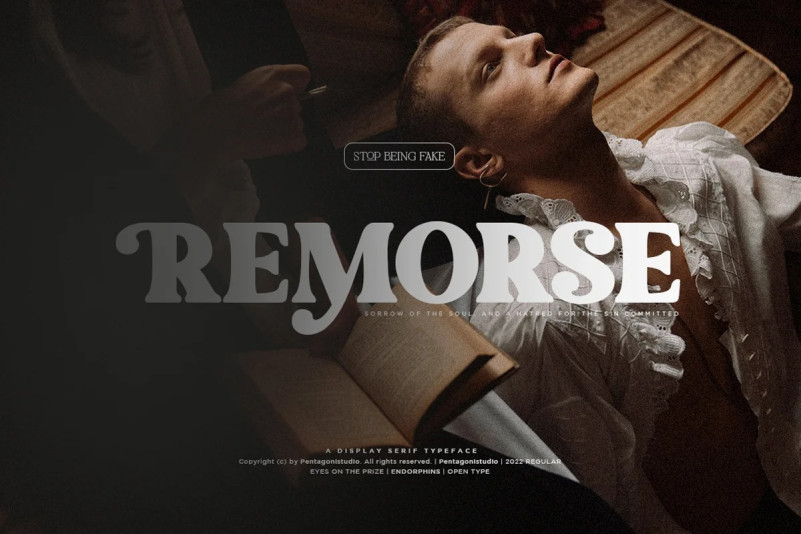
Morphins Font
It’s time to see our impressive font, Morphins Is A Fancy Display Serif Character Inspired By Retro and Vintage Style. This font is perfect for stickers, retro projects, craft projects, shirts, svg designs, procreate designs, branding, blogs, logos, invitations and more!